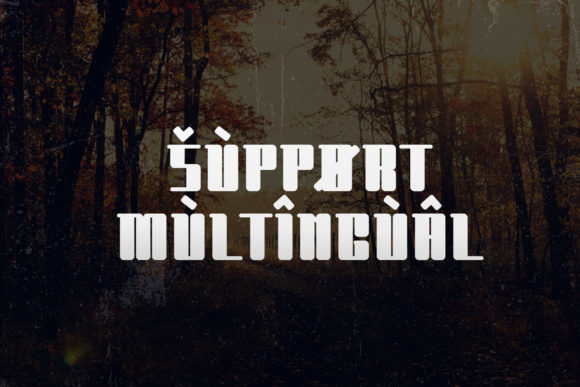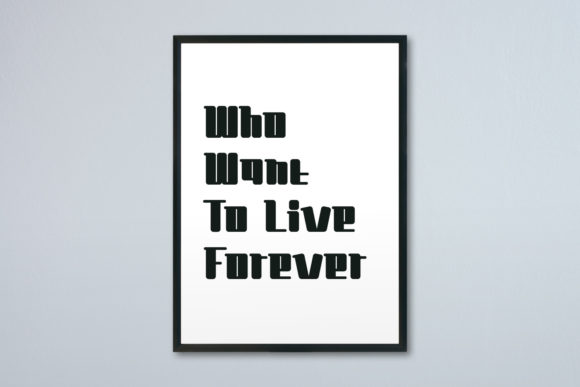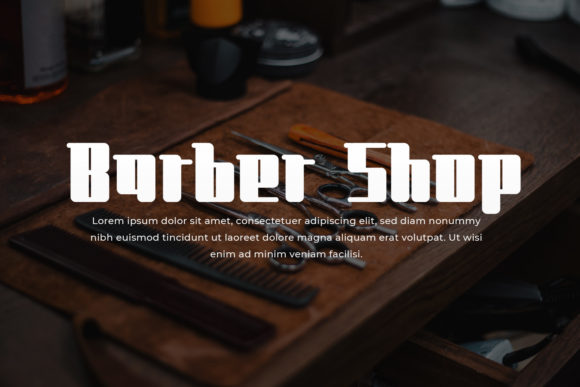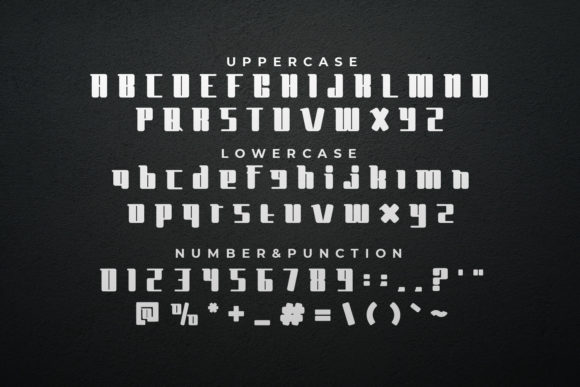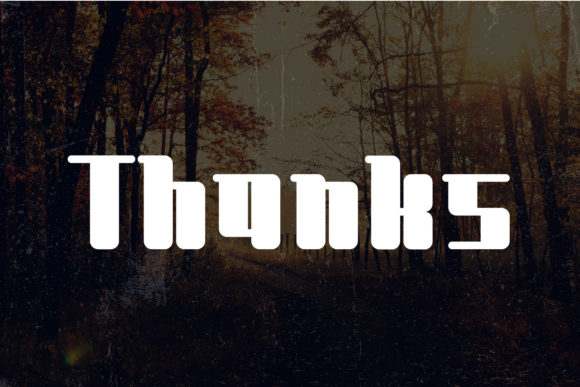
Introduction to Rock You Font
Rock You is a cool, bold and thick lettered display font.
This font is ideal for writing web designs, business cards, or pretty much anything else that requires a unique touch .
Key Features of Rock You Font